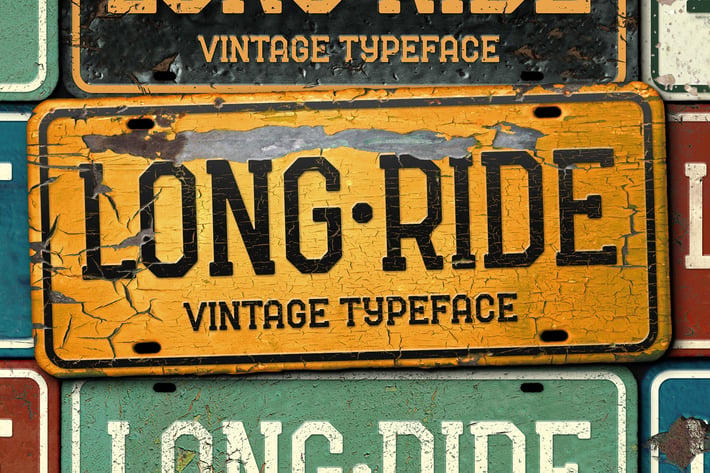
Long Ride Font
Hi! Introducing a stylized font "Long Ride". It's a simple minimalistic font with modern geometric shape. This font is perfect for label and plates design or various lettering compositions.